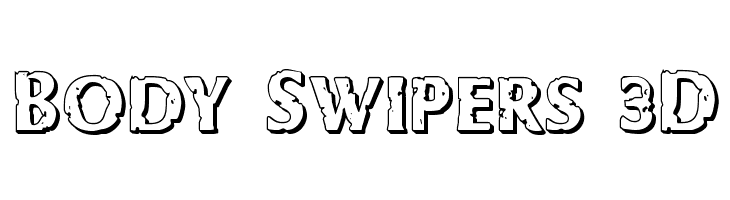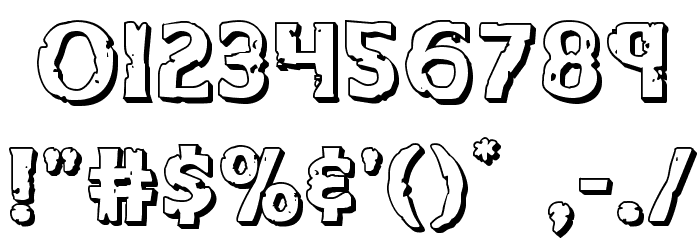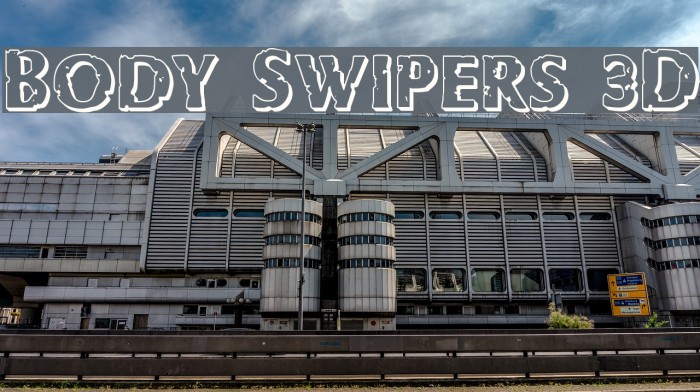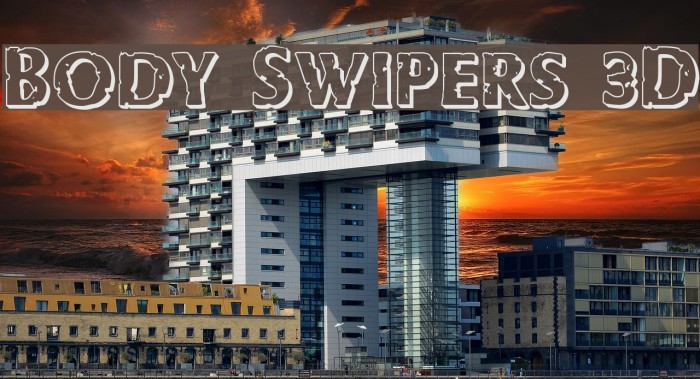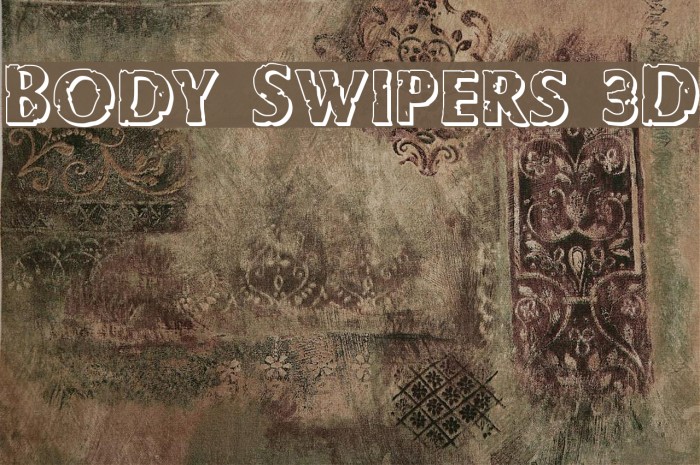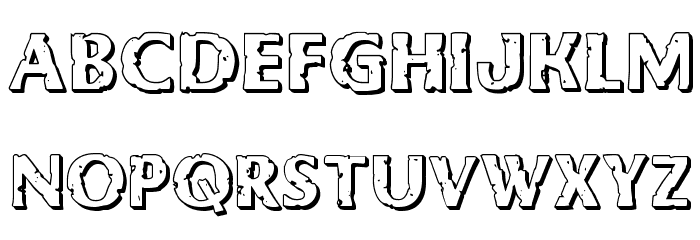
Body Swipers 3D Font
Body Swipers 3D Description
This font features a bold, three-dimensional effect with a distressed, grunge-like texture. Each character is outlined with a thick black border, giving it a striking and impactful appearance. The interior of the letters is filled with a white space that is intentionally irregular, creating a worn and rugged look. This style is reminiscent of graffiti or street art, adding a sense of edginess and urban flair. The uppercase and lowercase letters maintain a consistent style, ensuring uniformity across the alphabet. Numbers and special characters are designed with the same attention to detail, making them cohesive with the overall aesthetic.
A bold, 3D font with a distressed, grunge texture and thick outlines from Distorted Eroded fonts.
- Proposed Projects: Ideal for urban-themed designs, posters, album covers, or any project needing a bold, edgy look.